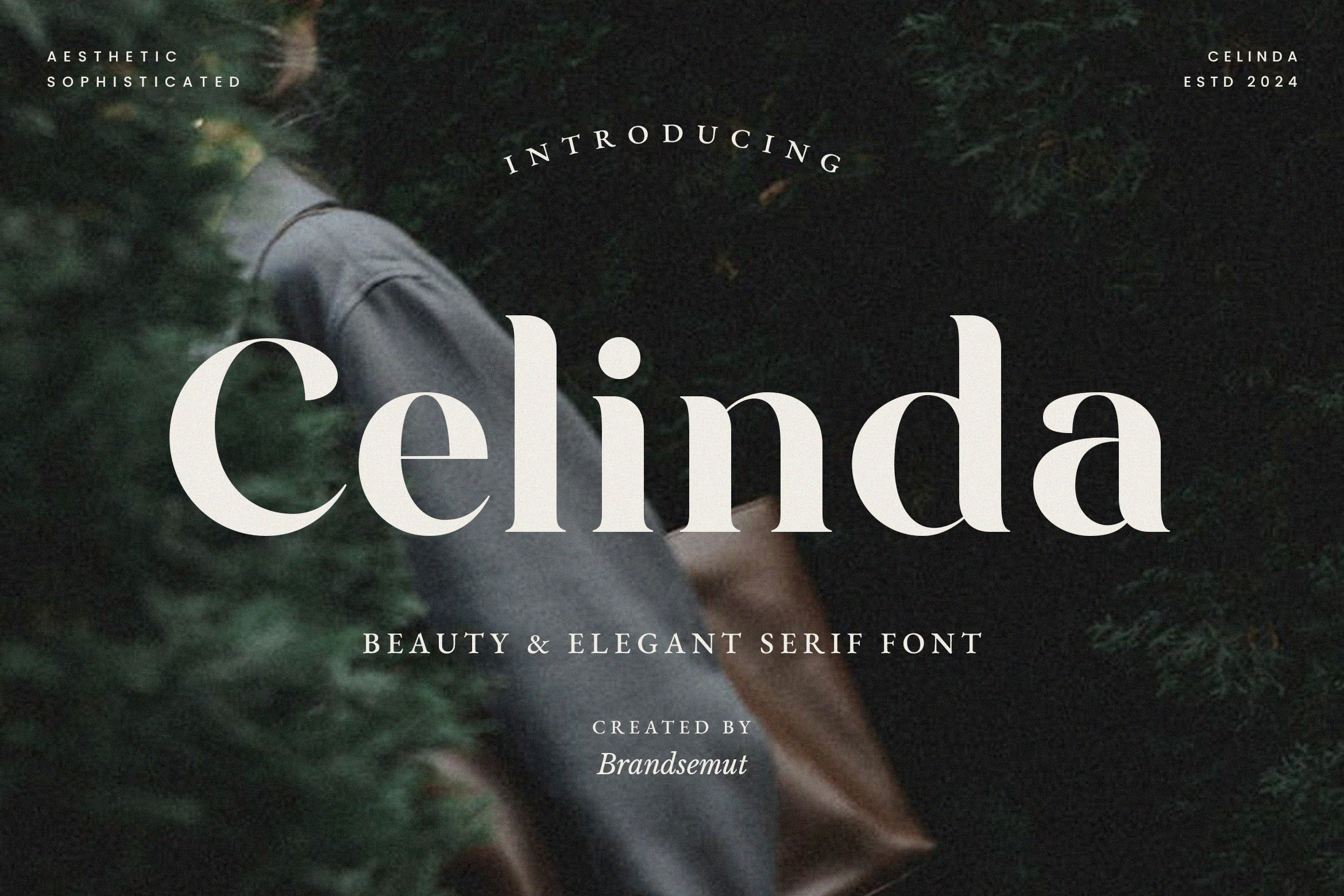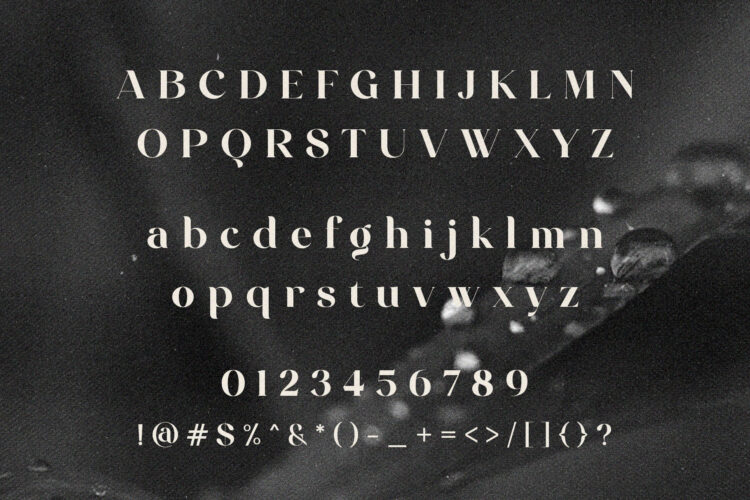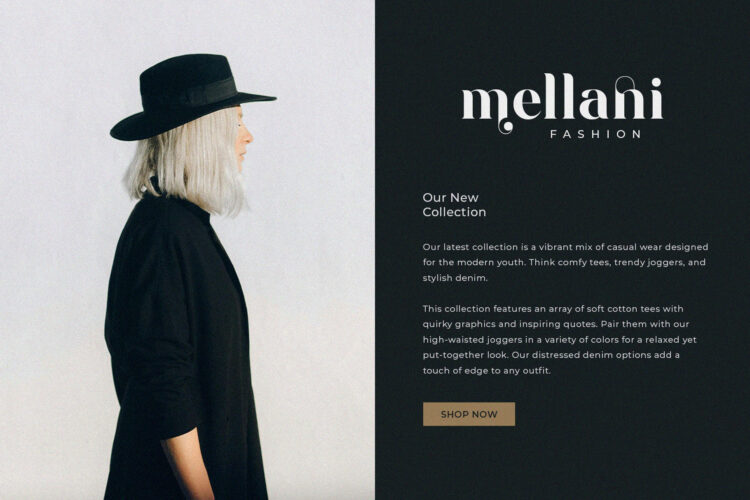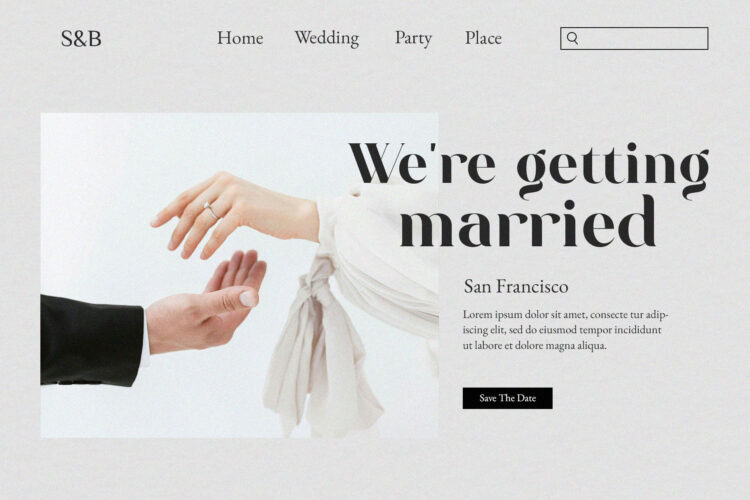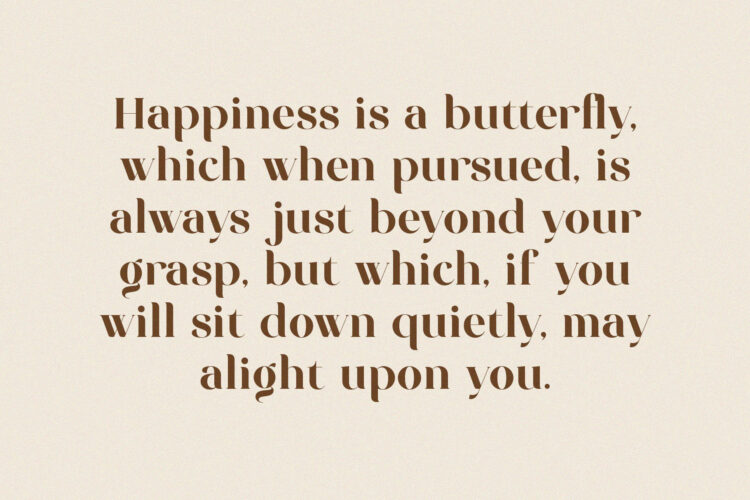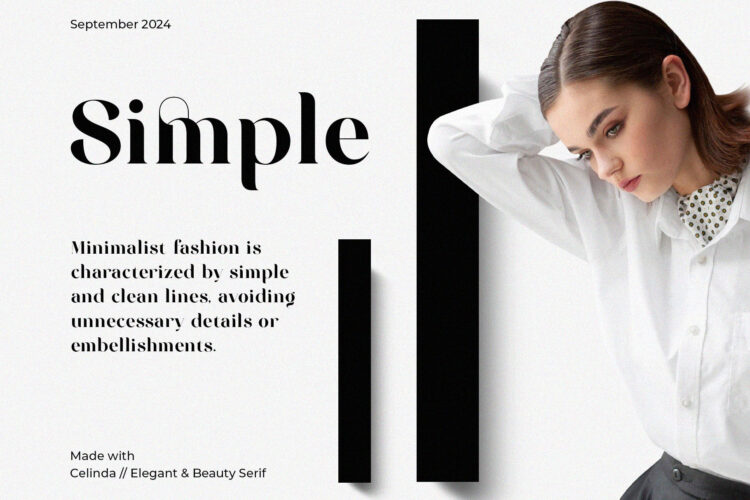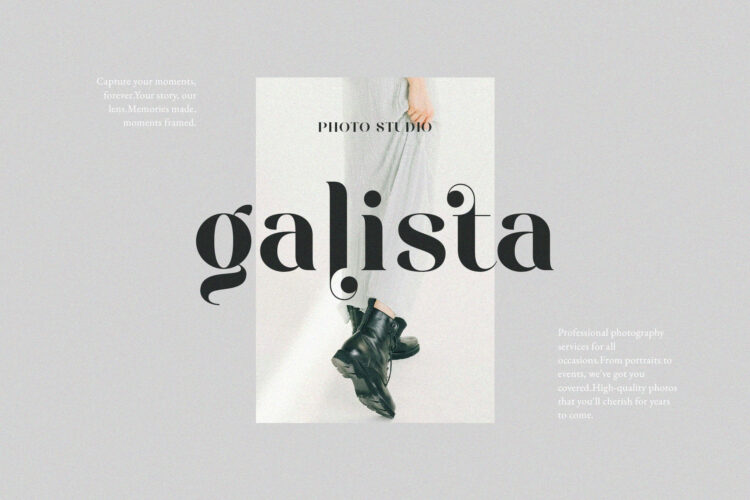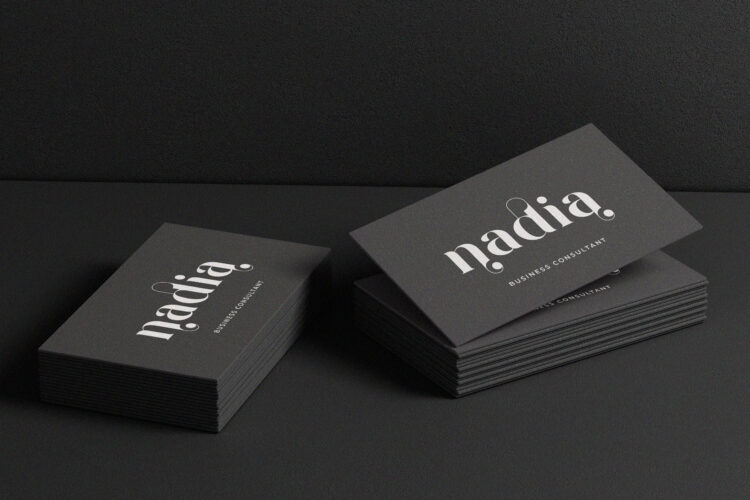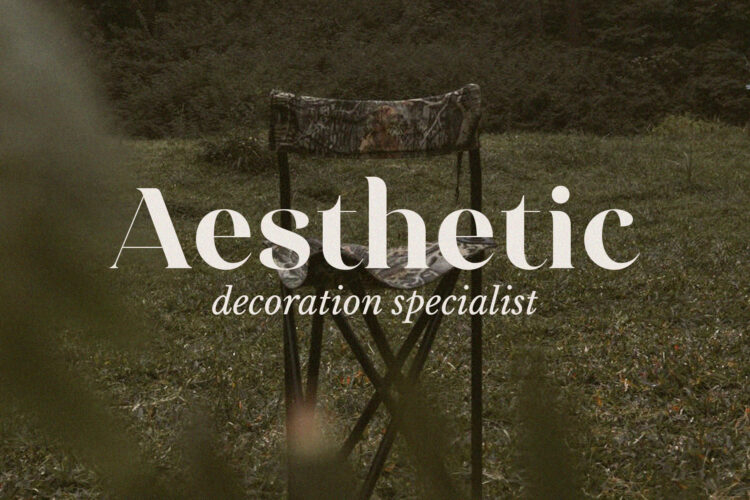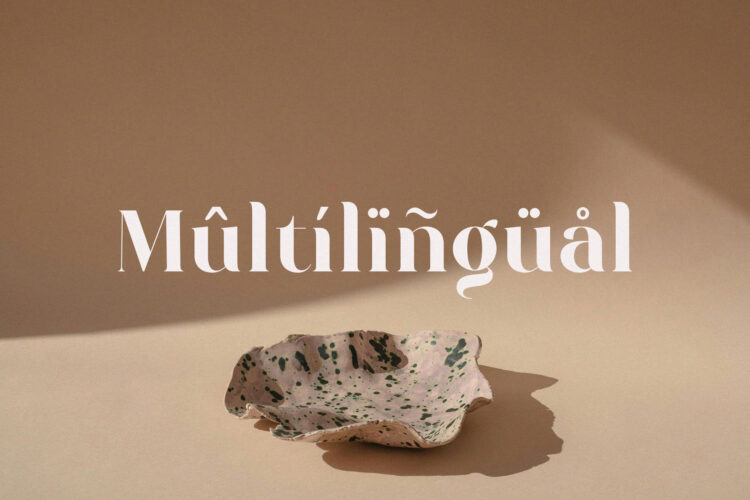
Introducing Celinda Beauty & Elegant Serif Font.
Celinda is a modern and classy typeface, best used as a display for headings, logos, branding, magazines, product packaging and invitations. Celinda come with clean lines and smooth curves give any project an extra touch of class.